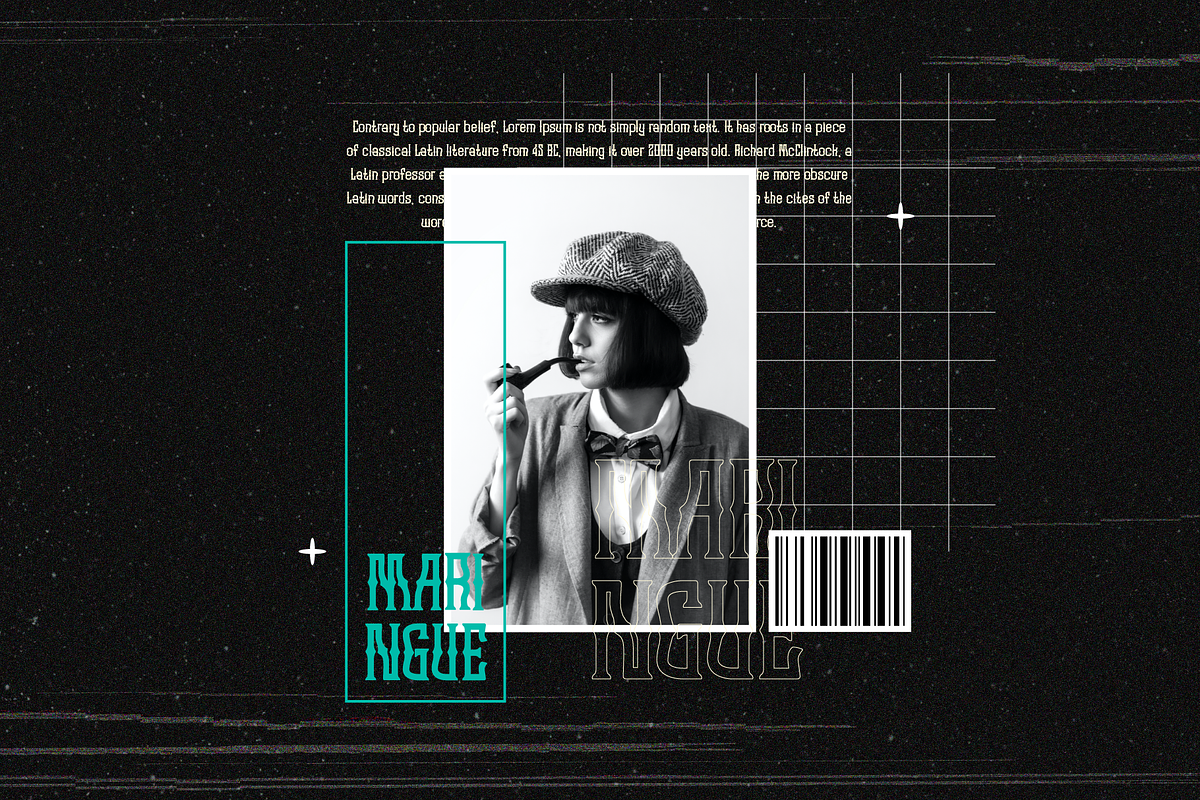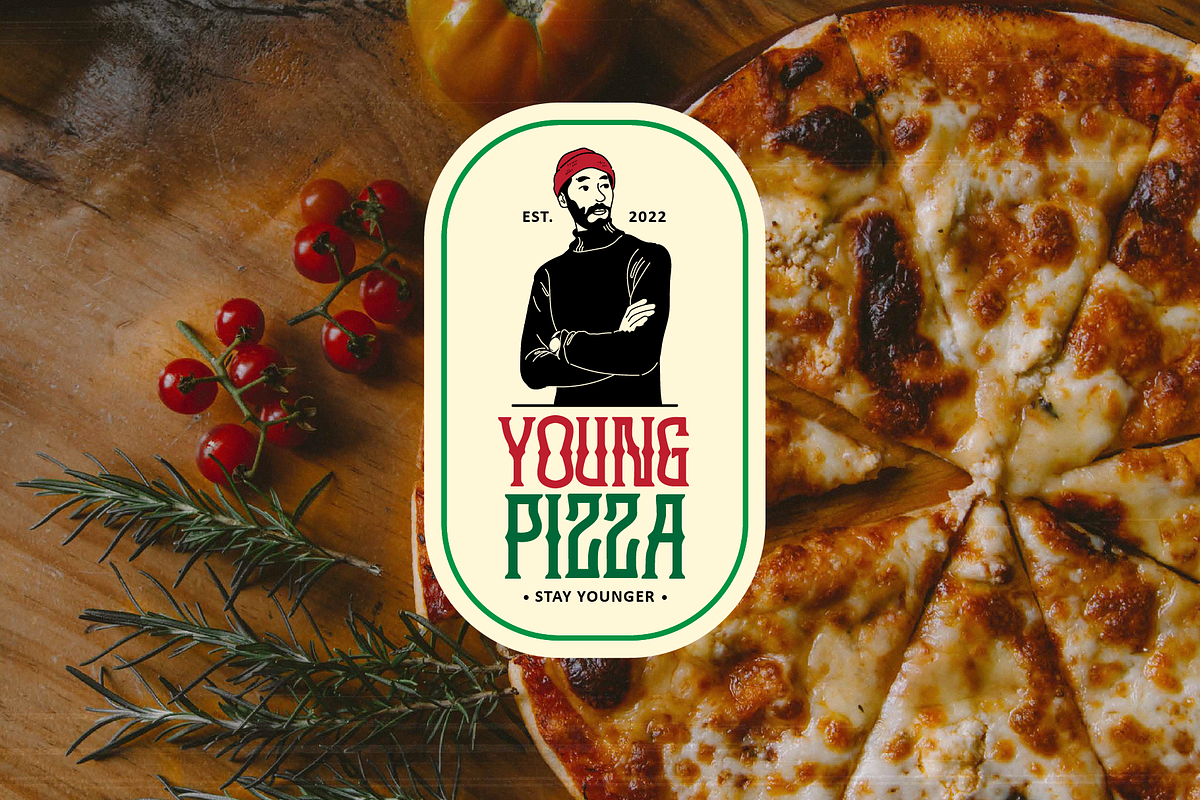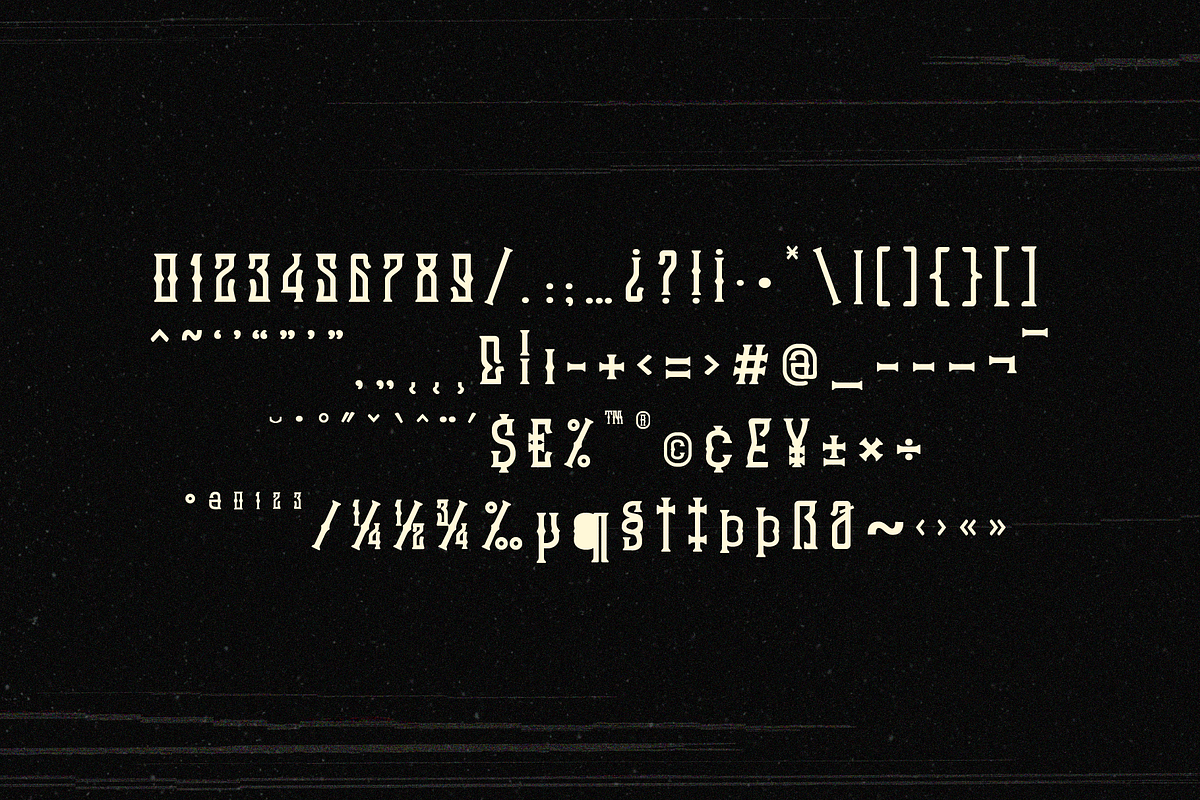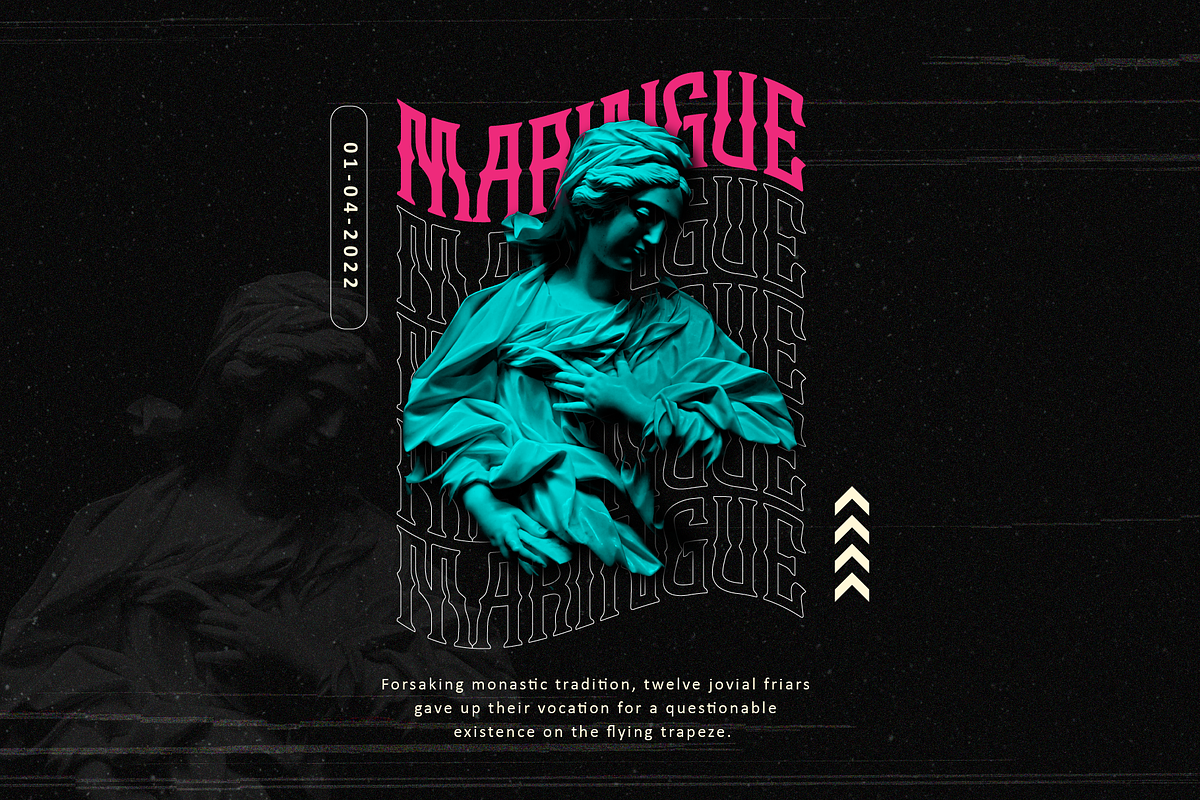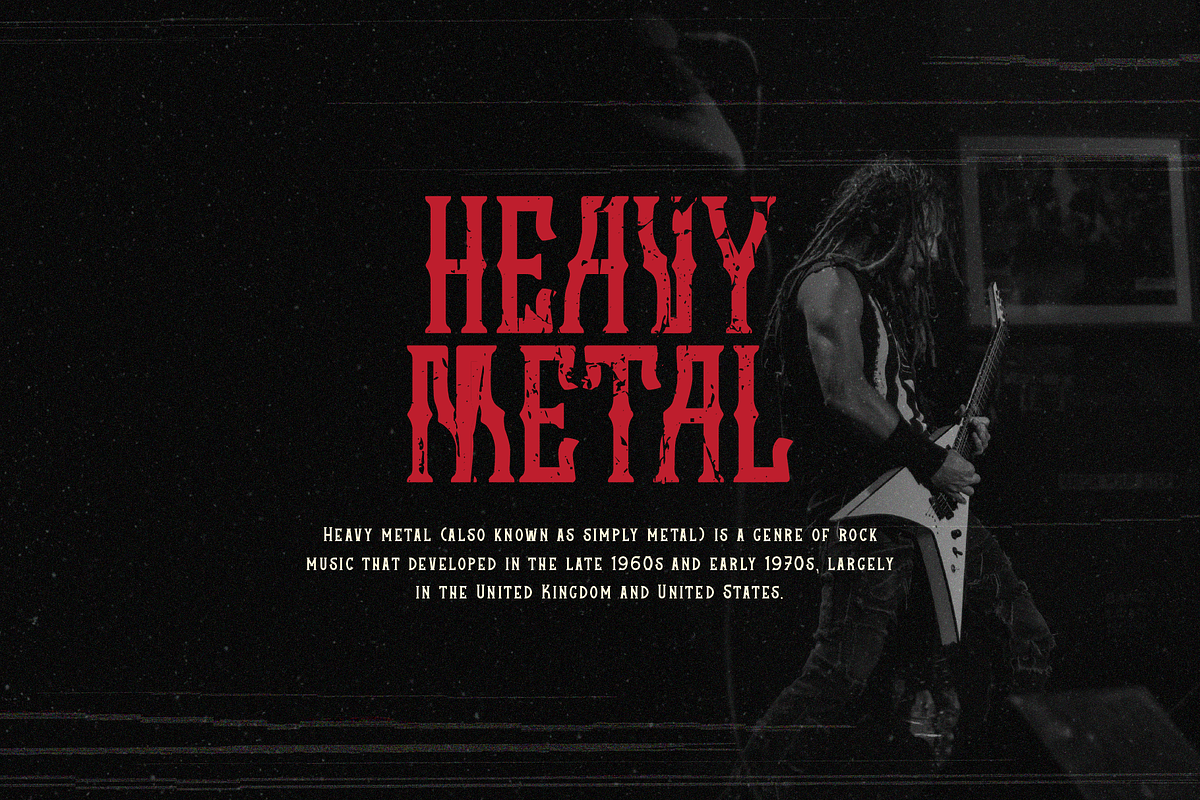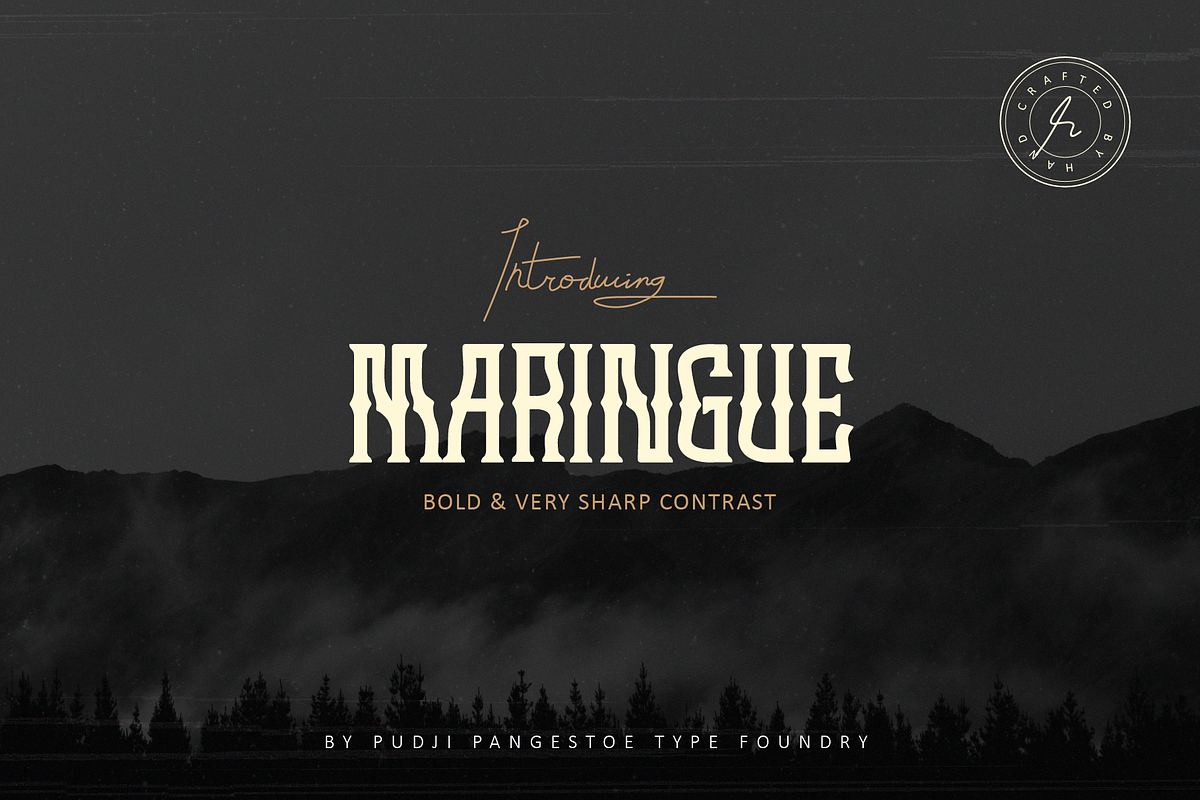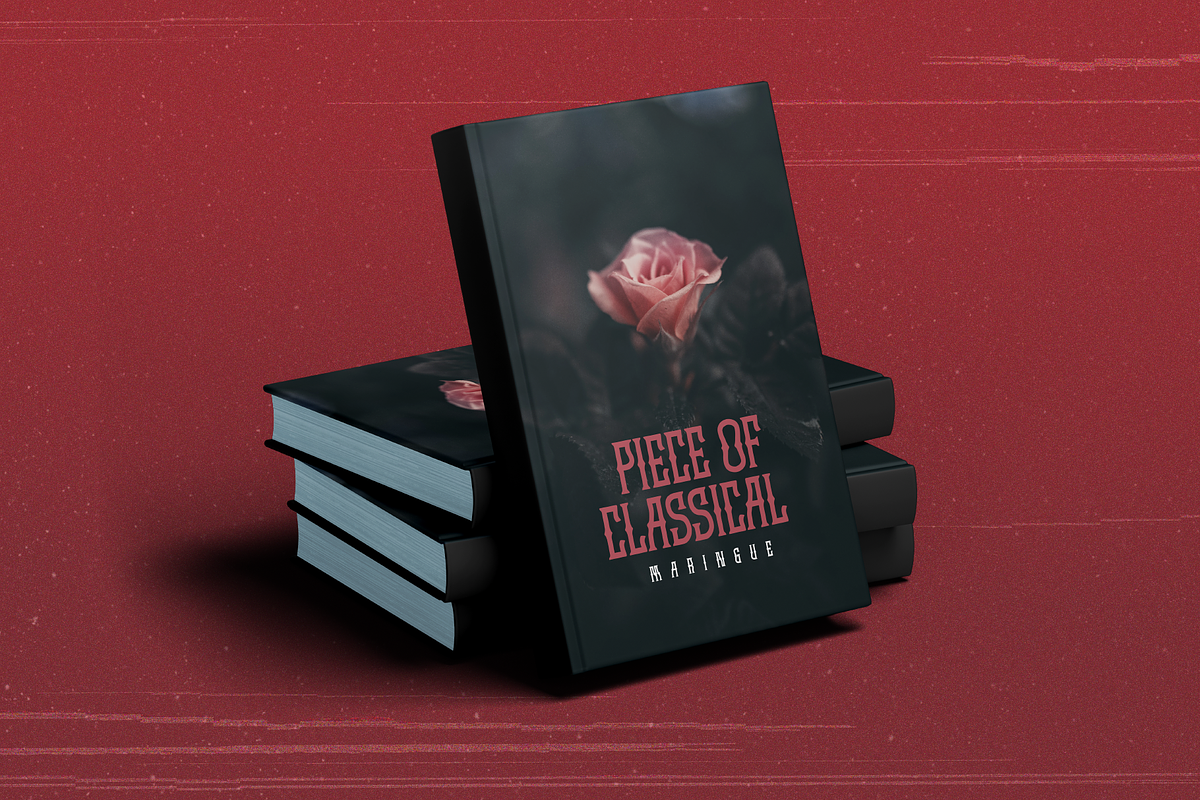
Maringue Typeface
MARINGUE is Retro Western Font that is well-produced by hand and generate into a clean form, that will be best when used in any placement like logo, poster, t-shirts, or any display.
Build manually, and reform into a clean Typeface. Natural stroke from original hand-lettering. It can be used for just Titles or even writing.